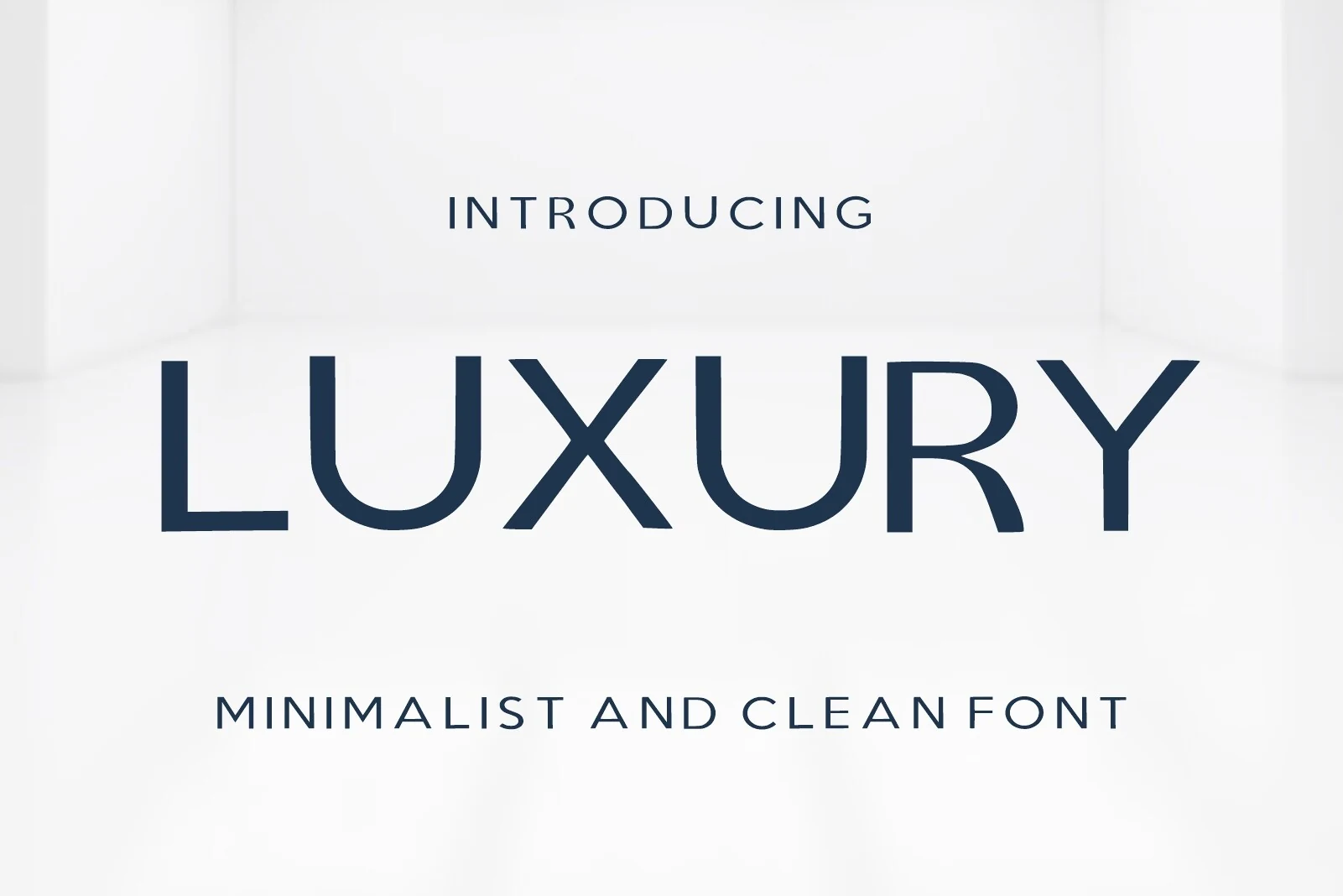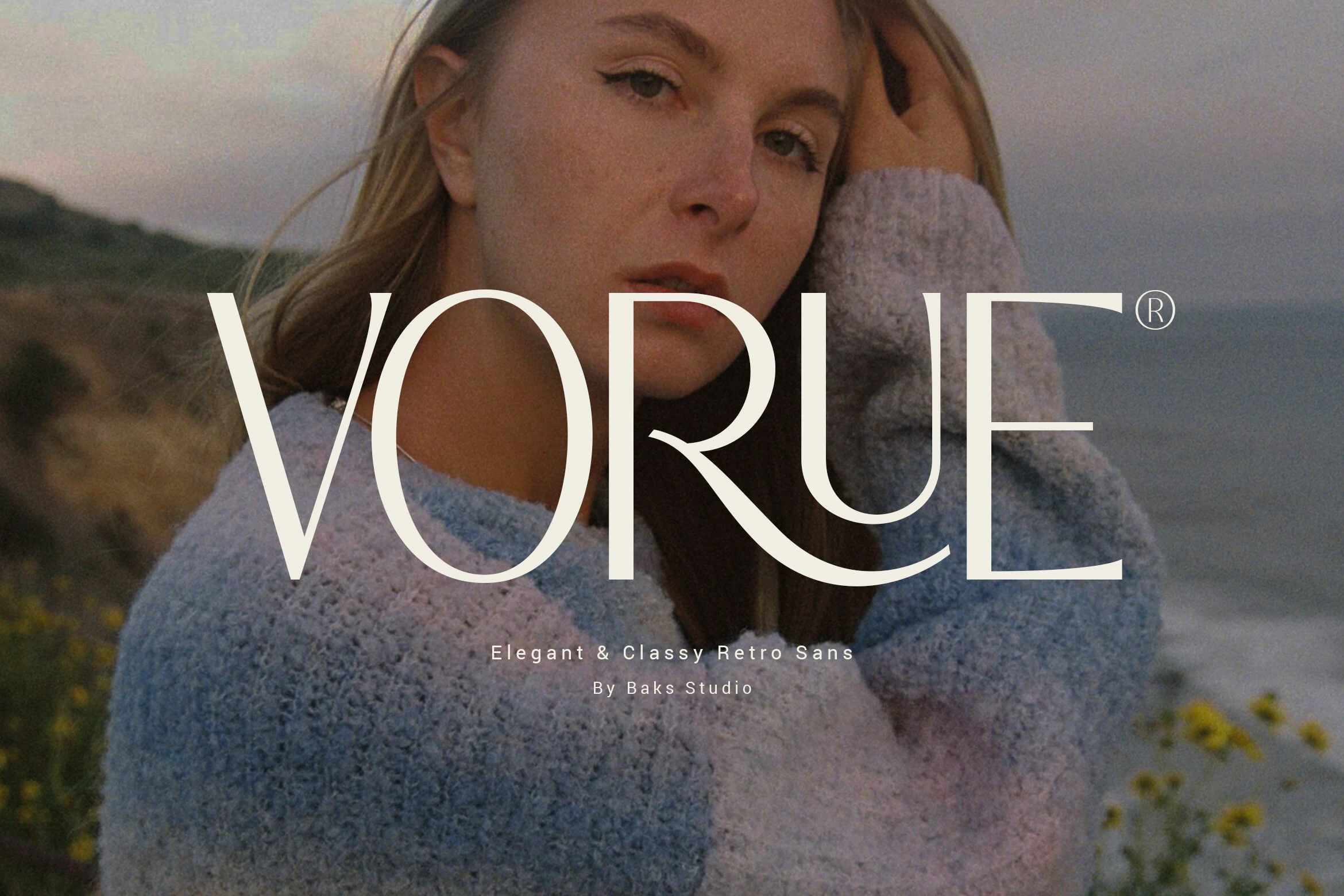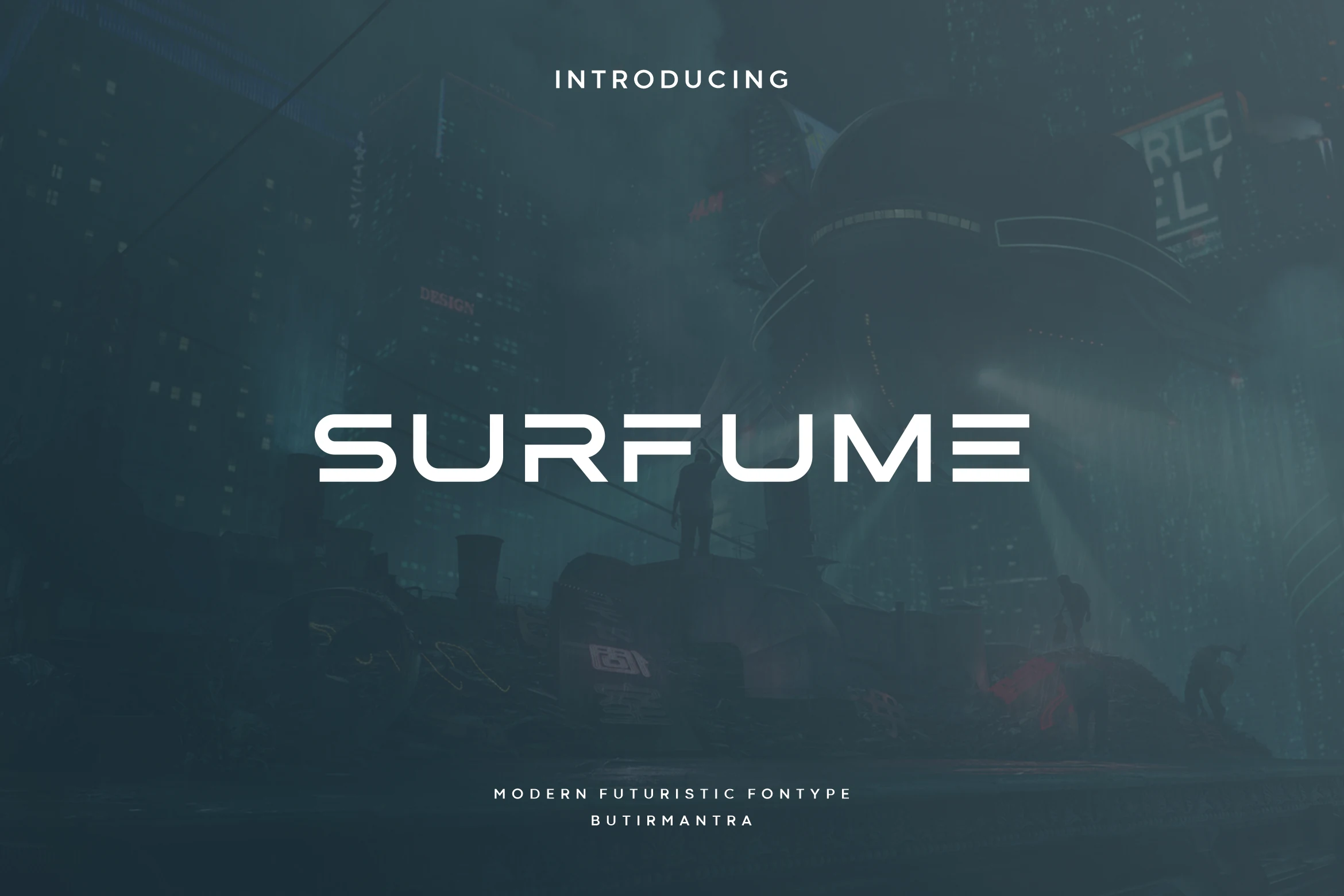
11 Best Sans Serif Fonts for Logos Designers Need in 2026
Sans Serif Fonts for Logos help designers build clean wordmarks, modern brand systems, and sharp visual identities. This collection is for anyone choosing fonts for logos, packaging, posters, website headers, fashion branding, or minimal editorial layouts.
Bold & Rounded Sans Serif Fonts for Logos
These fonts use heavier strokes, rounded counters, and geometric proportions, making them useful for logos that need clear impact, modern friendliness, and strong headline presence.
Nura Font
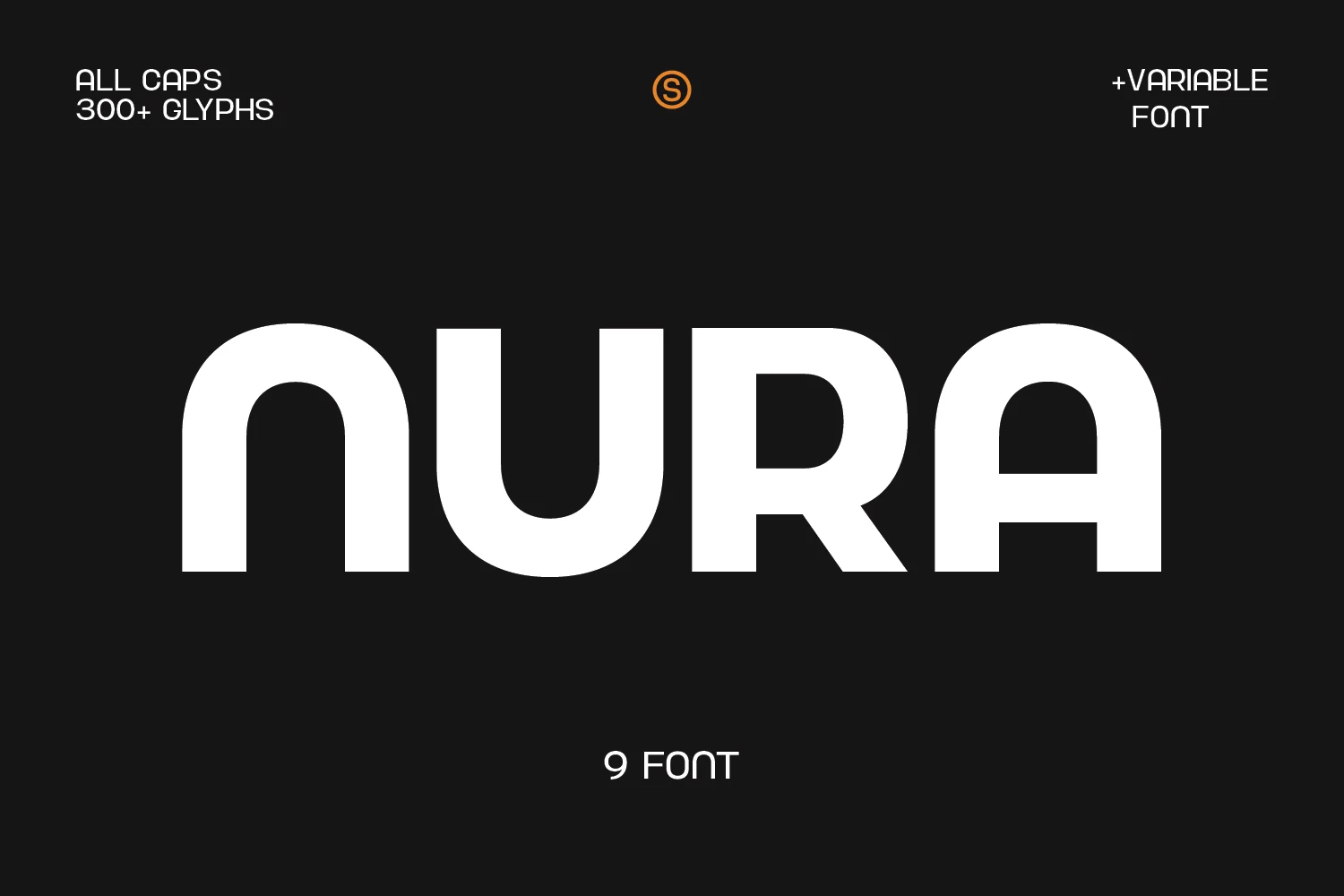
Best For: logos, branding, posters, headlines
Nura Font uses heavy all-caps forms with rounded vertical arches, squared terminals, and a wide, steady rhythm. Its clean sans structure keeps the word shape readable, while the softened curves stop the blocky weight from feeling too rigid.
Nura fits Sans Serif Fonts for Logos when the mark needs a strong modern silhouette without decorative noise. Use tight but not crushed spacing, strong contrast, and short title lines so the thick strokes and rounded counters stay clear in posters, branding, and headline layouts.
Neuria Font
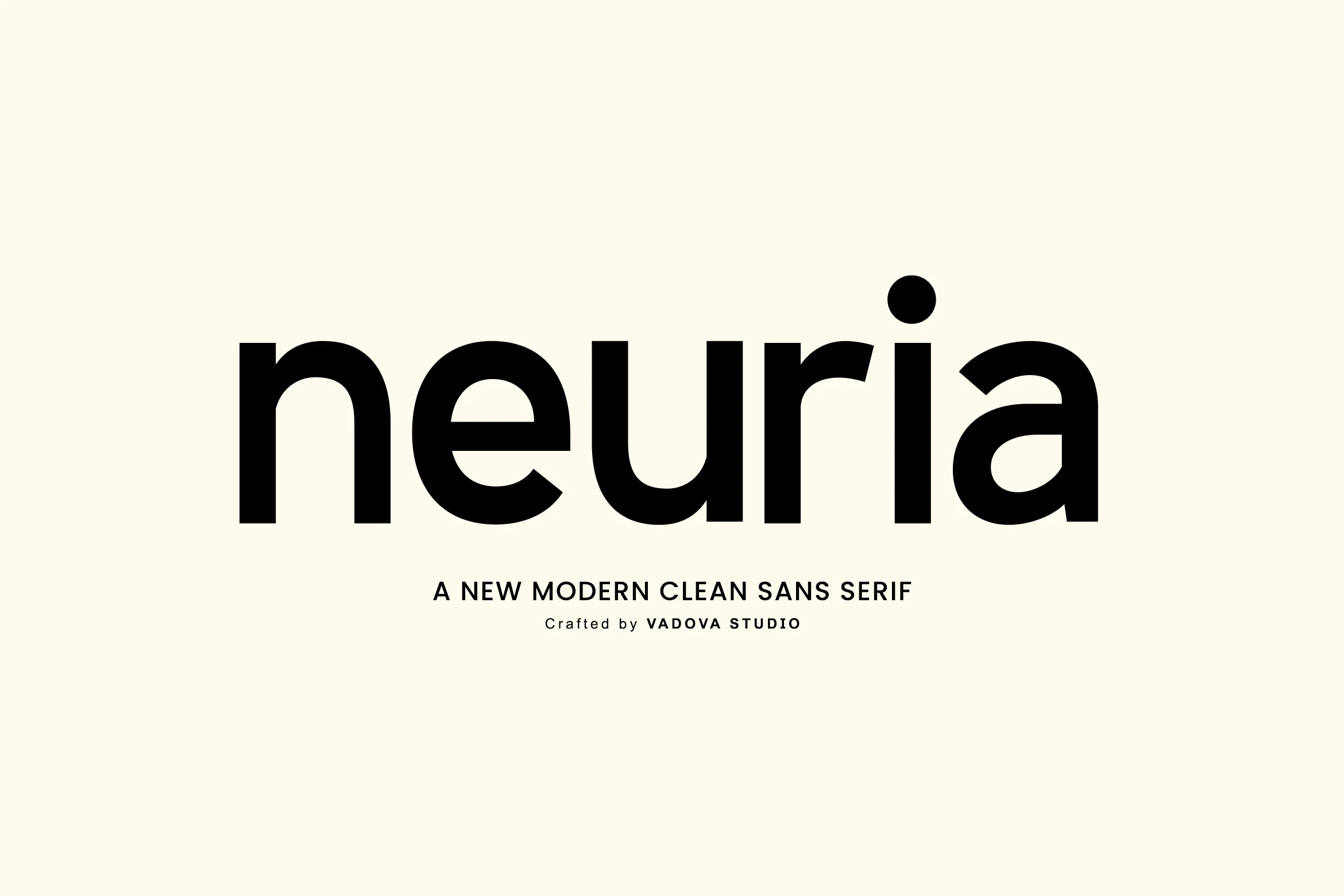
Best For: logos, branding, headlines, website headers
Neuria Font combines a bold geometric build with smooth rounded counters, a single-storey “a,” and a prominent dot over the “i.” Those broad lowercase forms give it strong visual weight, while the clean curves keep the overall rhythm modern and approachable.
For Sans Serif Fonts for Logos, Neuria is especially effective when you want a wordmark to read clearly at a glance. Its dense strokes and balanced proportions hold up well in short names and headers, and a little open space around the lettering helps the shape stay crisp instead of crowded.
Gaglio Font
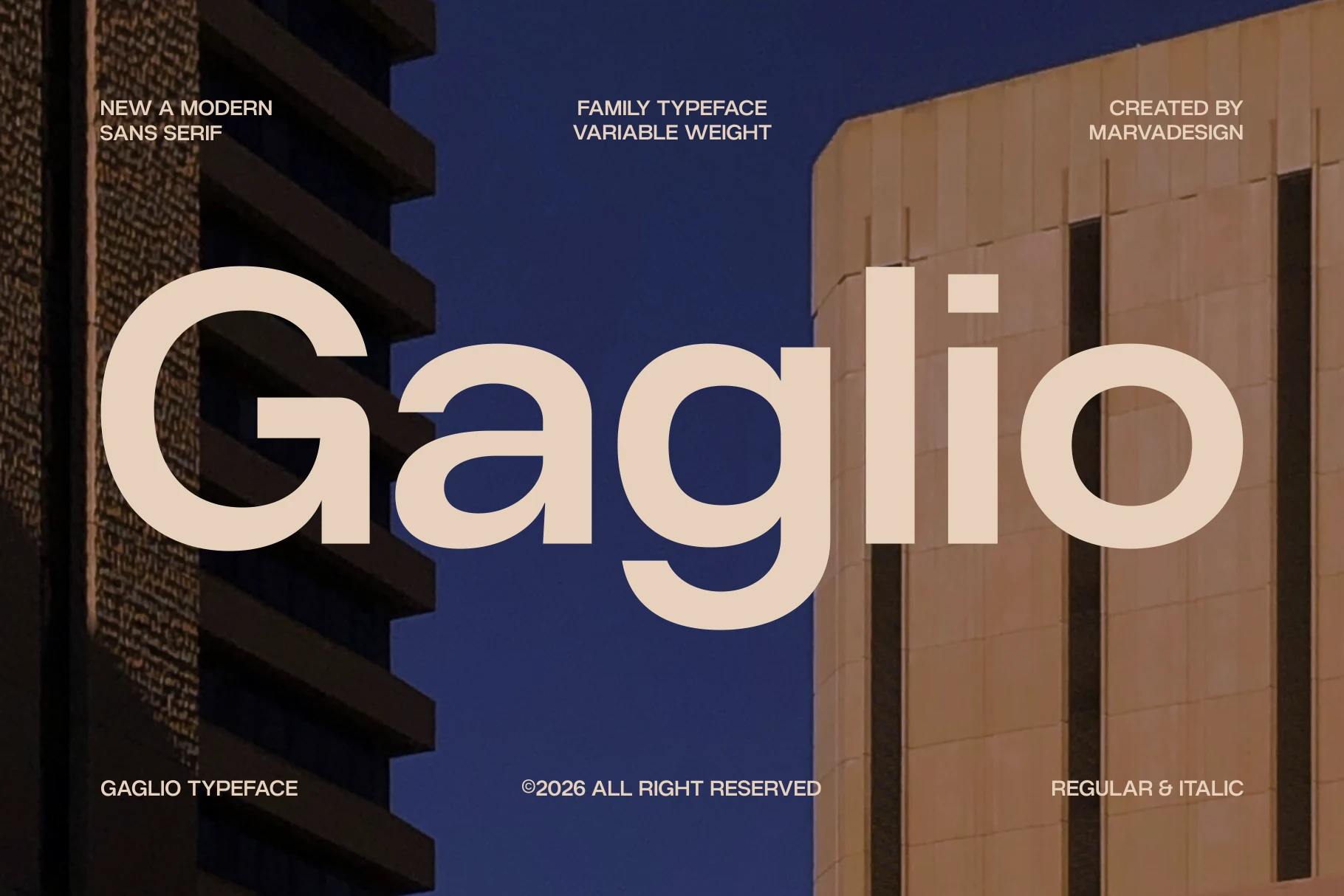
Best For: logos, branding, website headers, editorial designs
Gaglio Font has a confident geometric build with broad strokes, a large x-height, and open shapes that keep the lettering clear even at a glance. The rounded bowls and clean vertical cuts give it an architectural feel, while the lowercase forms keep the overall tone modern rather than severe.
It works well for Sans Serif Fonts for Logos when you need a mark that feels polished and contemporary. The variable weight system helps you shift from bold identity work to lighter interface or editorial settings, and its generous apertures make short brand names and headers read cleanly without tightening the spacing too much.
Homush Font
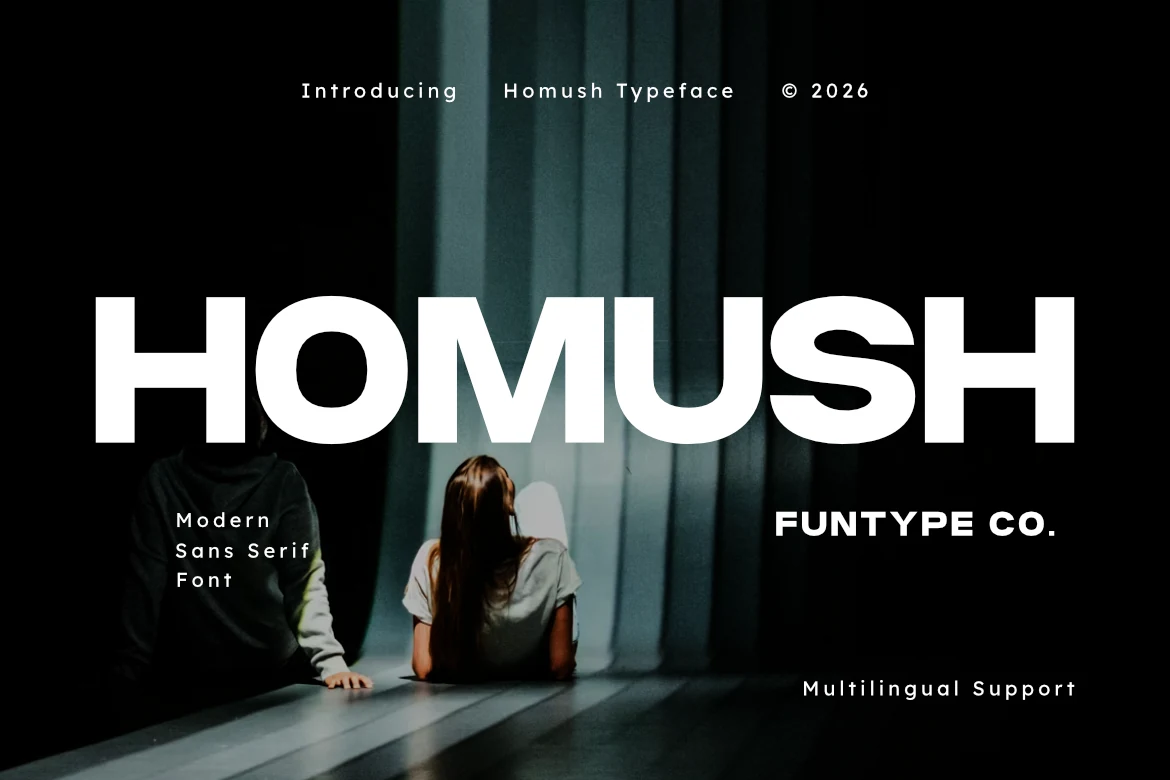
Best For: logos, branding, website headers, merch design
Homush Font has a wide, commanding stance with bold strokes, geometric curves, and extended proportions that give every letter real presence. The rounded O, sturdy U, and even weight create a clean industrial rhythm, so the silhouette feels forceful without losing clarity.
Homush fits Sans Serif Fonts for Logos when a brand needs confidence and a modern edge. It works especially well in short names, sports-inspired identities, and large headers, where its built-in width can fill space naturally and reduce the need for excessive tracking or extra styling.
Elegant & Luxury Sans Serif Fonts for Logos
This group focuses on slim strokes, refined spacing, and polished letterforms for fashion, beauty, editorial branding, and premium wordmarks with a cleaner luxury tone.
Mansory Font
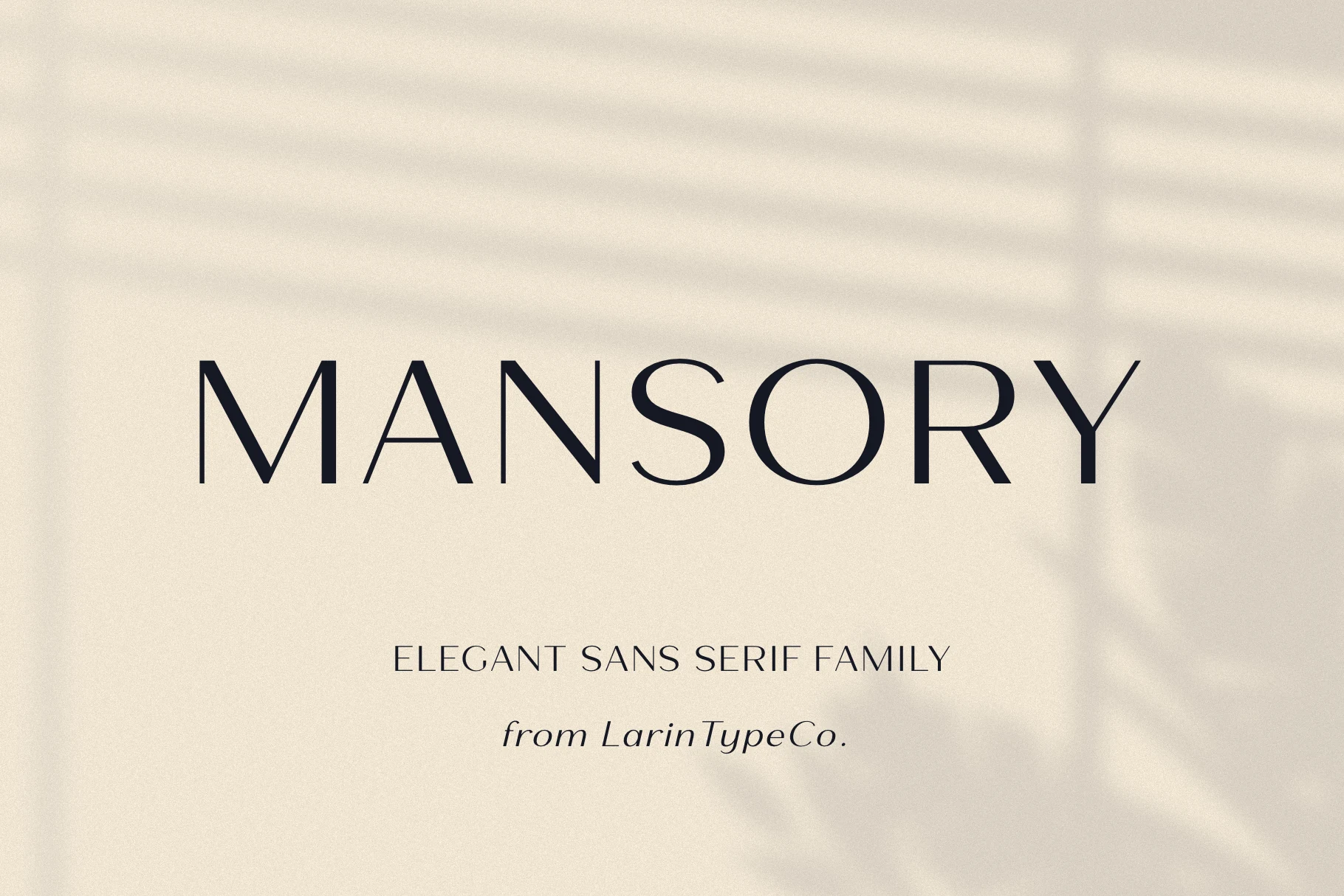
Best For: logos, branding, editorial designs, luxury designs
Mansory Font has a light, polished presence built from slim strokes, wide proportions, and smooth geometric curves. The tall capitals feel calm rather than sharp, and details like the near-perfect round “O” and graceful “S” give it a refined editorial tone.
It suits Sans Serif Fonts for Logos that need elegance without ornament. Keep it at generous sizes with a little breathing room, so the airy line weight and balanced spacing stay crisp across wordmarks, invitations, and clean headline compositions.
Chopard Font
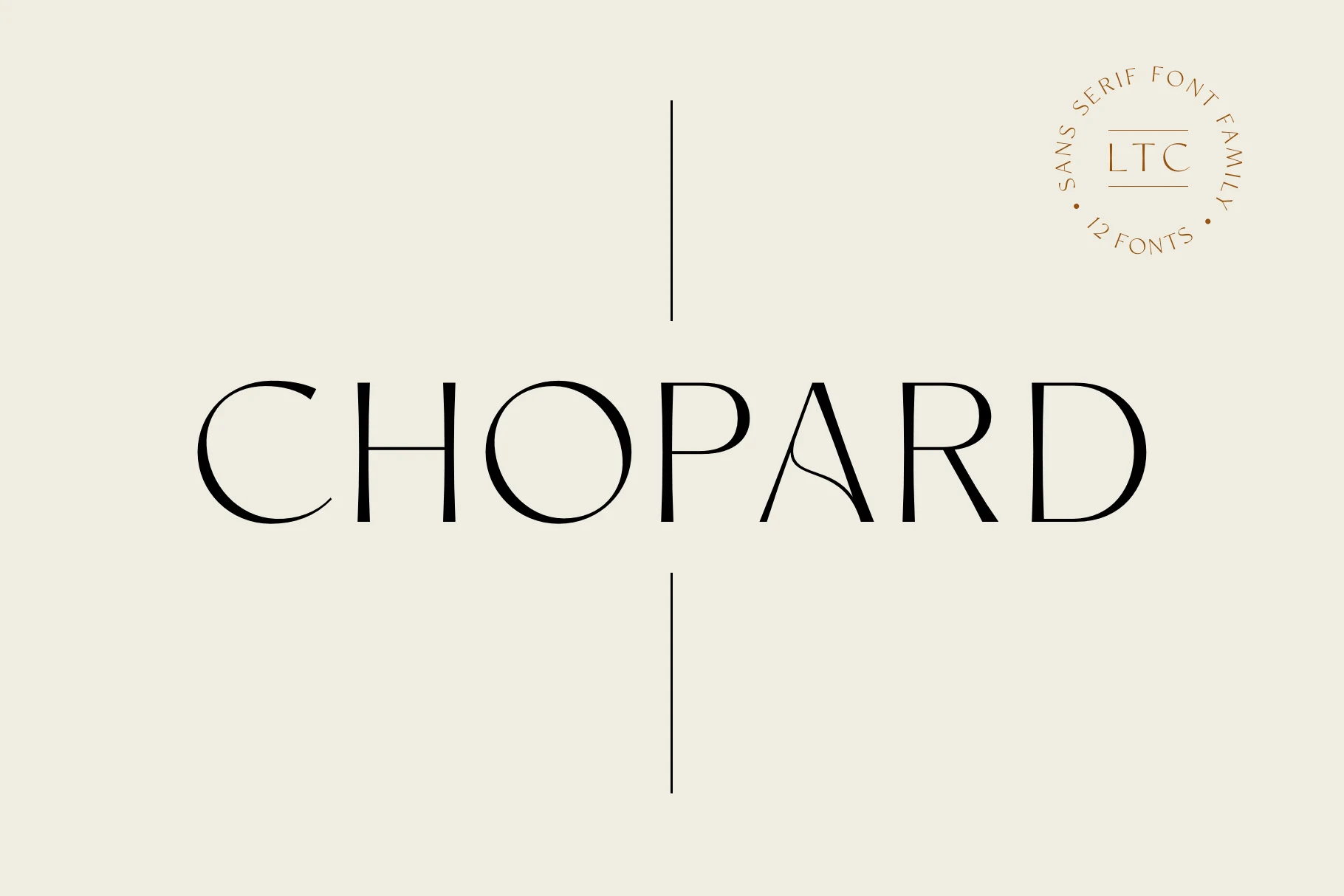
Best For: logos, branding, luxury designs, editorial designs
Chopard Font has a refined, high-contrast look with slim strokes, broad round curves, and elegant vertical stress. The uppercase forms feel polished and architectural, while the stylized “A” adds just enough character to keep the wordmark from feeling overly plain.
Chopard suits Sans Serif Fonts for Logos when you want a clean identity with a luxury edge. It performs best in short names, titles, and upscale branding where generous spacing and a restrained layout let the fine lines, open counters, and balanced proportions stay sharp.
Cultivo Font
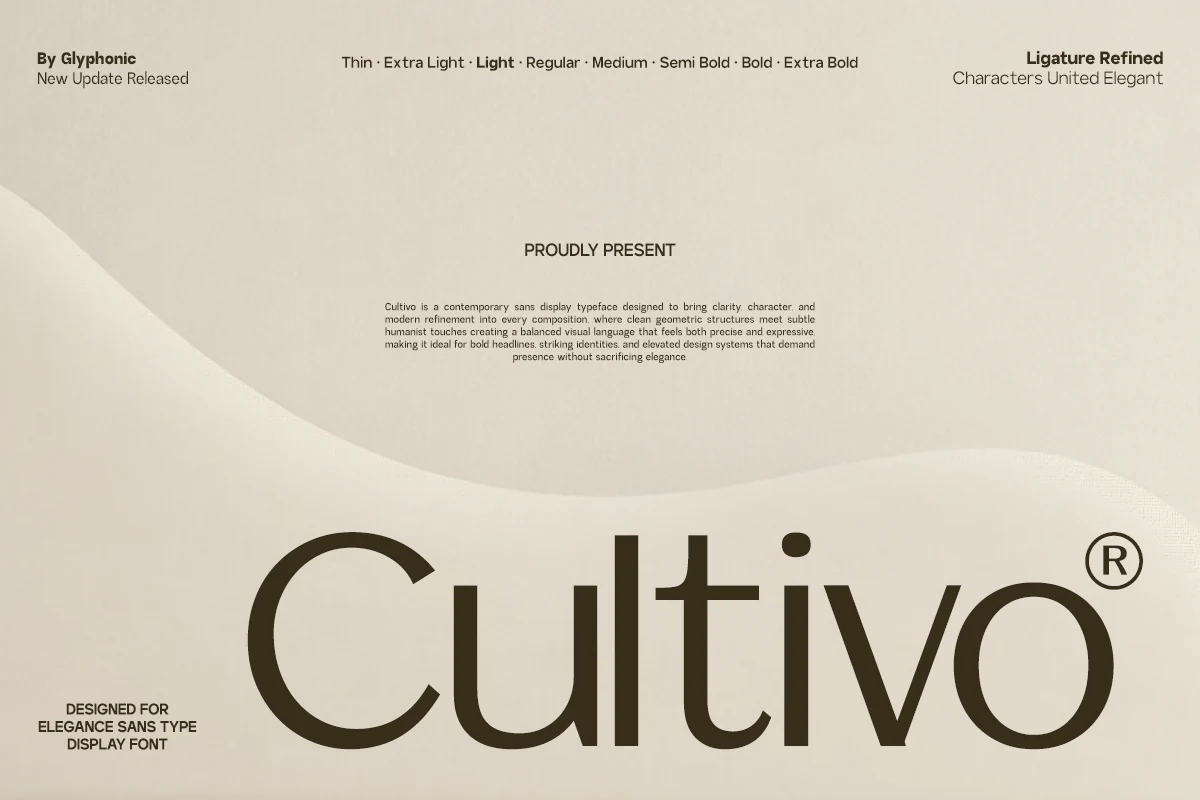
Best For: logos, branding, editorial designs, website headers
Cultivo Font has a poised display look, mixing clean geometric structure with softer humanist curves. The broad “C,” open counters, and sleek verticals give it clarity, while refined spacing and subtle ligature handling keep the word shape polished rather than mechanical.
It works well for Sans Serif Fonts for Logos when a brand needs a sharp tech-driven voice. Use it on short names, posters, and merch where the built-in width can fill space without extra effects, and tap its ligatures or alternates to fine-tune a tighter, more custom wordmark.
Conclusion
Choose bold rounded styles for high-impact marks, elegant slim fonts for premium branding, and futuristic sans serifs when the logo needs a sharper tech or display voice.